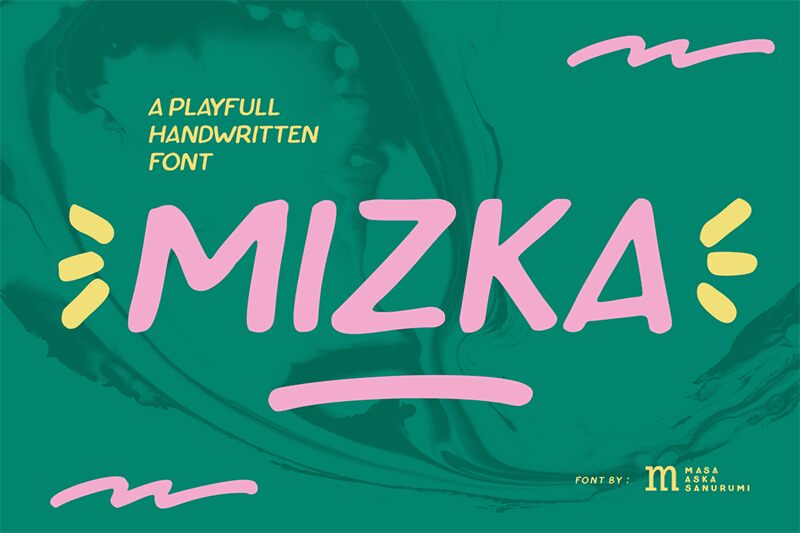
Mizka emerges from the creative mind of Masa Aska Sanurumi, encapsulating charm and readability in a semi-bold, handwritten style. Its carefree yet precise strokes make it an excellent choice for those seeking a personal touch in their designs.
Whether gracing the front of festive greeting cards, adding character to engaging headlines, or bringing warmth to branding projects, Mizka's versatile flair can elevate your creative endeavors with its clean and exquisite feel. This font not only promises to infuse your work with a sense of playfulness but also maintains an air of sophistication that will capture and hold attention across diverse platforms.
Embrace Mizka for an artistic expression that's as unique as your project's vision.